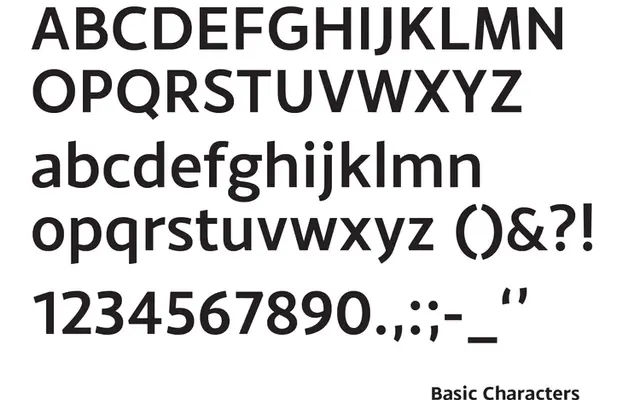
Monsal Gothic
A seven-weight grotesque sans drawing on American Gothic typefaces, designed for text-heavy print and digital publishing.
Rooted in American Gothic traditions, Monsal Gothic offers clean compact proportions across seven weights with matching italics and a variable font. Over 600 characters cover Western, Southern and Central European Latin with OpenType features including six numeral variants, small caps, case-sensitive forms and ligatures. The family suits text-centric work in books, magazines and digital interfaces where readability at running text sizes is the priority.
Described by the foundry as inspired by American Gothic typefaces, with clean compact proportions and strong readability characteristics typical of the grotesque tradition.